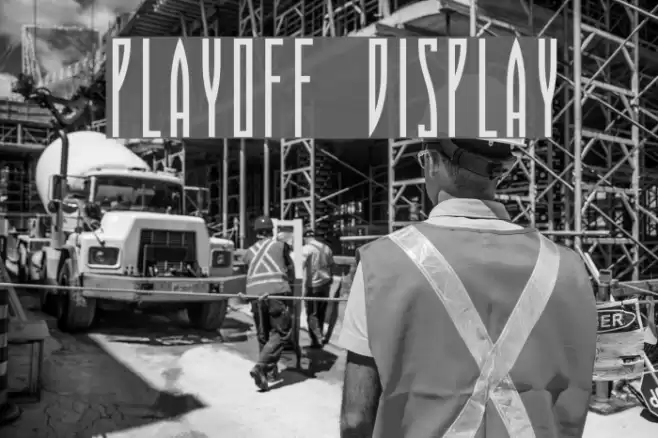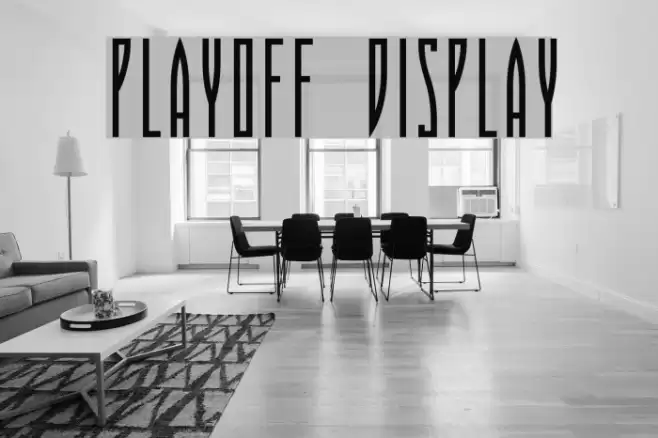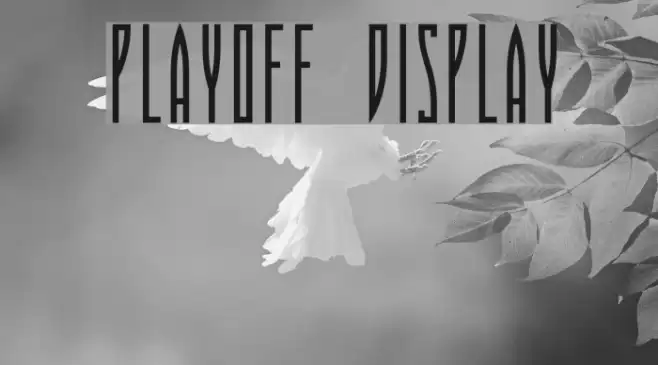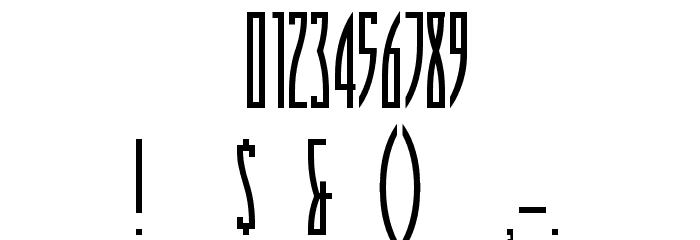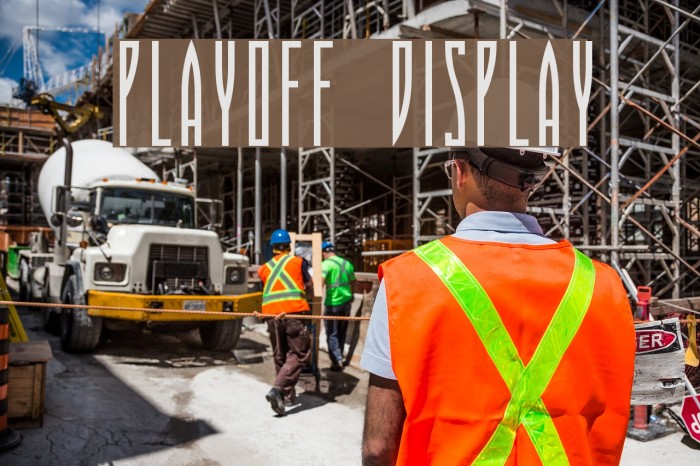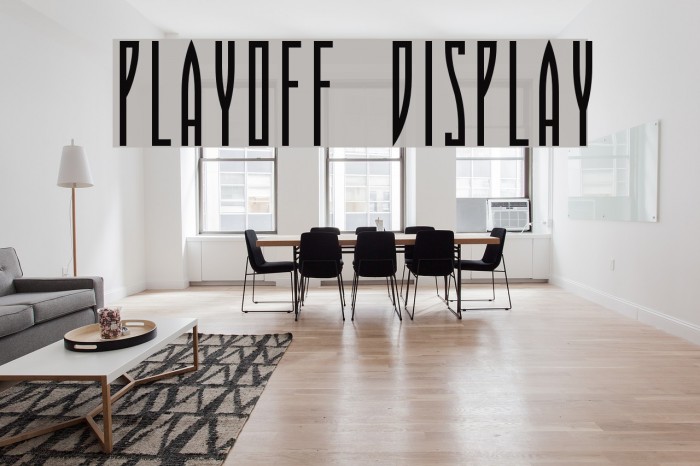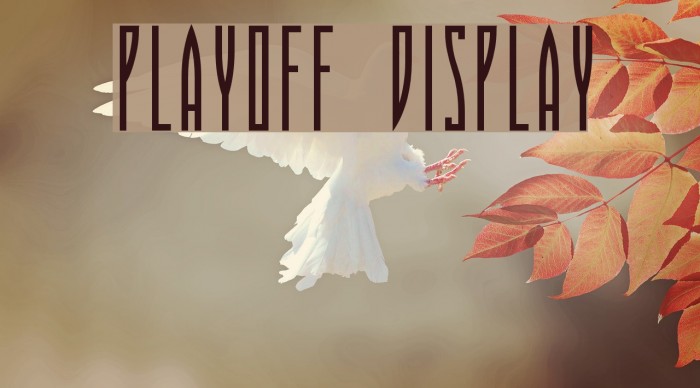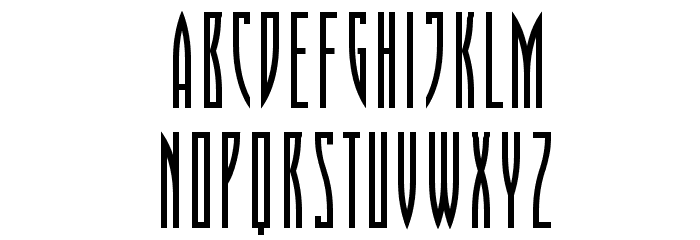
Playoff Display Font
Playoff Display Description
This font features a bold and striking design with tall, narrow characters that convey a sense of modernity and sophistication. The uppercase letters are particularly elongated, giving the font a unique and eye-catching appearance. The sharp angles and clean lines contribute to its contemporary style, making it suitable for impactful headlines and branding. The numerals and special characters maintain the same sleek aesthetic, ensuring consistency across all text elements. This font's distinct style makes it ideal for projects that require a bold statement.
A bold, modern font with tall, narrow characters and sharp angles from Uncategorized fonts.
- Proposed Projects: Ideal for sports branding, event posters, and modern logo designs.
- Character Spacing: Tight